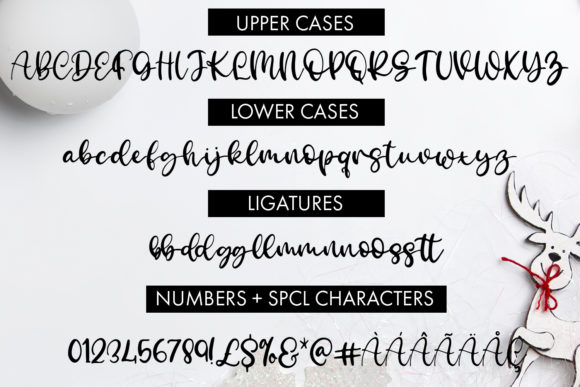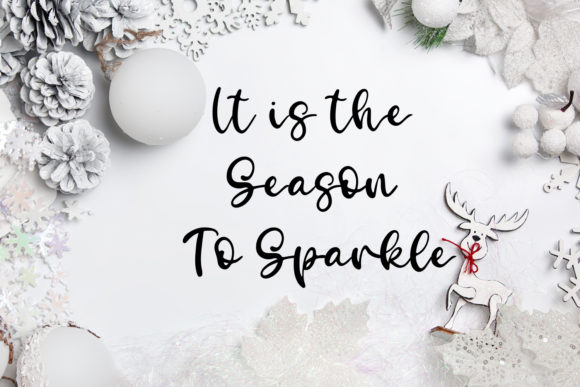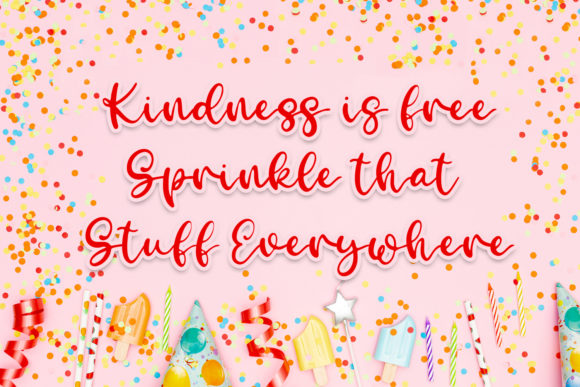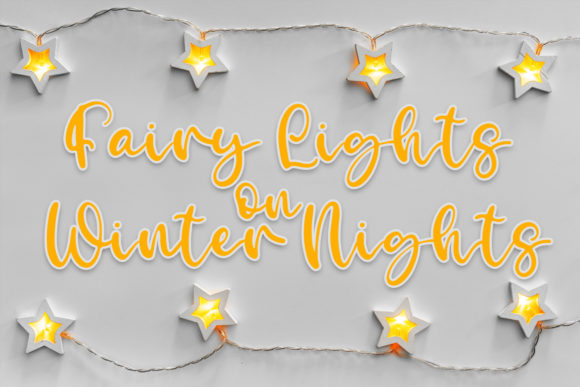
Glimmering Sleigh Font: Elevate Your Designs with Elegance and Sophistication
Are you a designer or crafter looking for a font that can add a touch of elegance and sophistication to your projects? Look no further than the Glimmering Sleigh font. This beautiful, handwritten font is perfect for creating stunning designs that will leave a lasting impression on your audience. In this article, we’ll take a closer look at the Glimmering Sleigh font, its features, and how you can use it to take your designs to the next level.
What is Glimmering Sleigh Font?
Glimmering Sleigh is an elegant and flowing handwritten font that is designed to add a touch of luxury and sophistication to your designs. With its smooth, cursive lines and intricate details, this font is perfect for creating beautiful and eye-catching designs. Whether you’re working on a branding project, a wedding invitation, or a craft project, Glimmering Sleigh is the perfect choice.
Key Features of Glimmering Sleigh Font
So, what makes Glimmering Sleigh font so special? Here are some of its key features:
- Elegant and flowing design: Glimmering Sleigh font has a smooth, cursive design that is perfect for creating elegant and sophisticated designs.
- Handwritten style: This font has a handwritten style that gives it a personal and unique touch.
- Intricate details: The font features intricate details that add to its elegance and sophistication.
- Versatile: Glimmering Sleigh font can be used for a wide range of projects, from branding and advertising to wedding invitations and craft projects.
How to Use Glimmering Sleigh Font
Using Glimmering Sleigh font is easy. Here are some tips to get you started:
- Pair it with other fonts: Glimmering Sleigh font pairs well with other fonts, such as sans-serif fonts, to create a beautiful contrast.
- Use it for headings and titles: This font is perfect for headings and titles, where you want to make a bold statement.
- Add a personal touch: Use Glimmering Sleigh font to add a personal touch to your designs, such as in wedding invitations or greeting cards.
- Experiment with colors and textures: Don’t be afraid to experiment with different colors and textures to add depth and interest to your designs.
Benefits of Using Glimmering Sleigh Font
So, why should you use Glimmering Sleigh font in your designs? Here are some benefits:
- Stand out from the crowd: With Glimmering Sleigh font, you can create designs that stand out from the crowd and grab attention.
- Add elegance and sophistication: This font adds a touch of elegance and sophistication to your designs, making them perfect for high-end projects.
- Save time: With Glimmering Sleigh font, you can create beautiful designs quickly and easily, saving you time and effort.
- Increase engagement: The elegant and flowing design of Glimmering Sleigh font can help increase engagement and interest in your designs.
In conclusion, Glimmering Sleigh font is a beautiful and elegant handwritten font that can add a touch of sophistication and luxury to your designs. With its smooth, cursive lines and intricate details, this font is perfect for creating stunning designs that will leave a lasting impression on your audience. Whether you’re a designer or crafter, Glimmering Sleigh font is a must-have in your font collection.